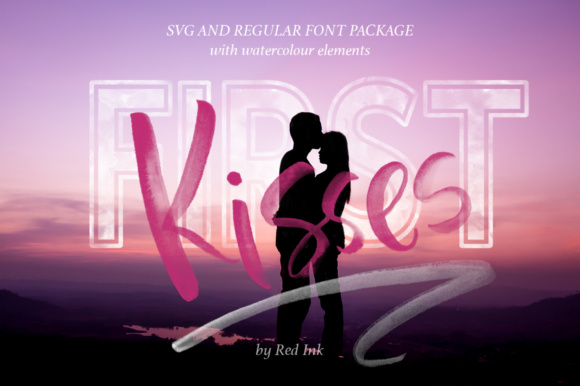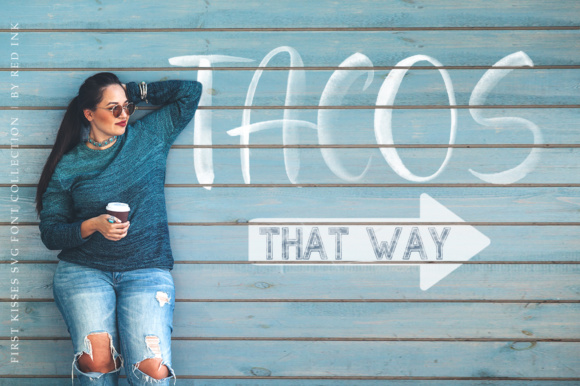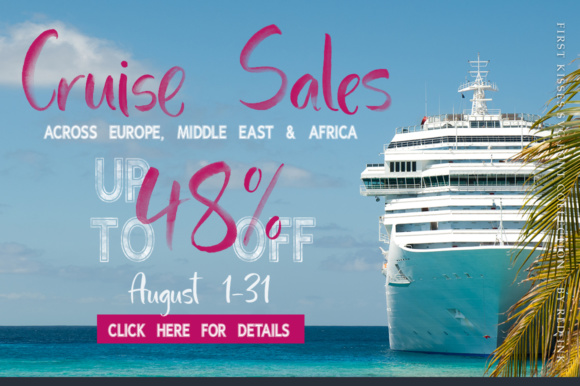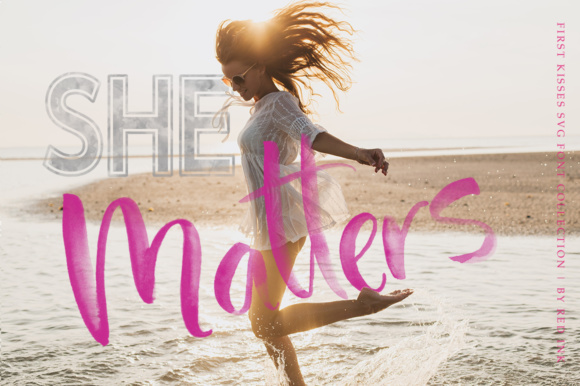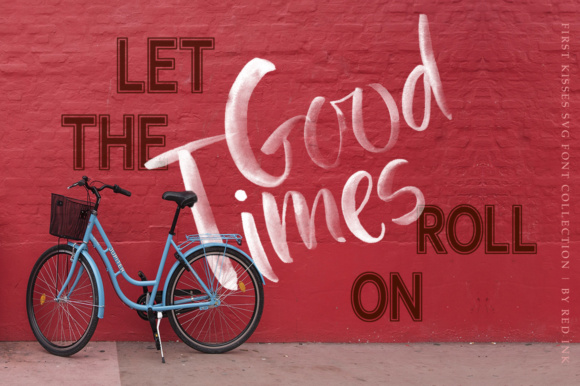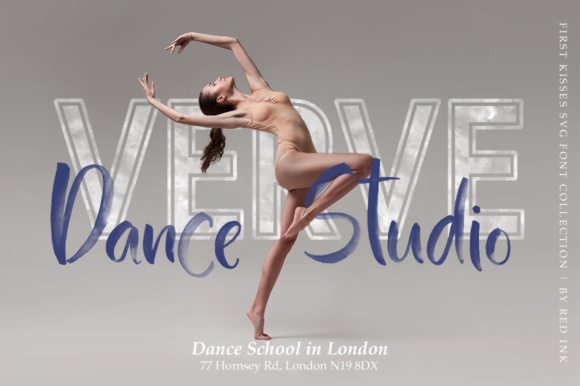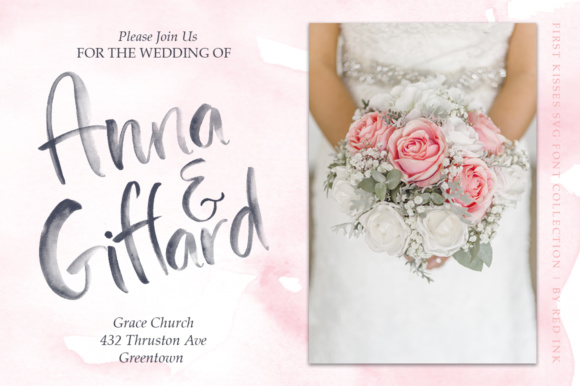
First Kisses is a hand drawn, watercolor collection which has high resolution letters and symbols. First Kisses fully preserved the watercolor texture and transparency of the letters. The full set of alternate letters and double letter ligatures let you to make your designs more realistic and add a real hand drawn look to your designs!